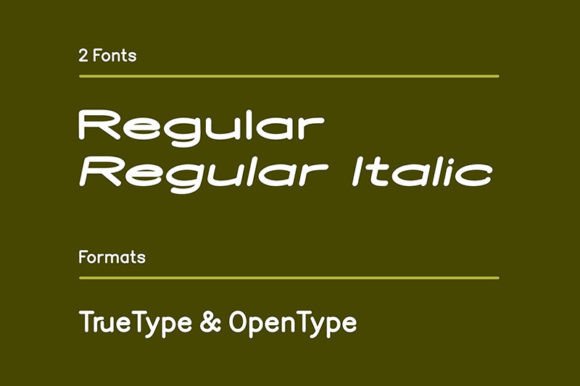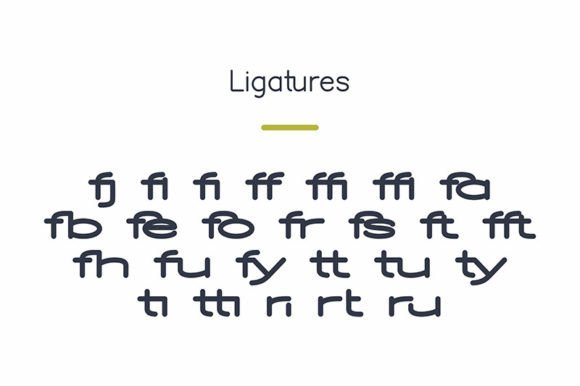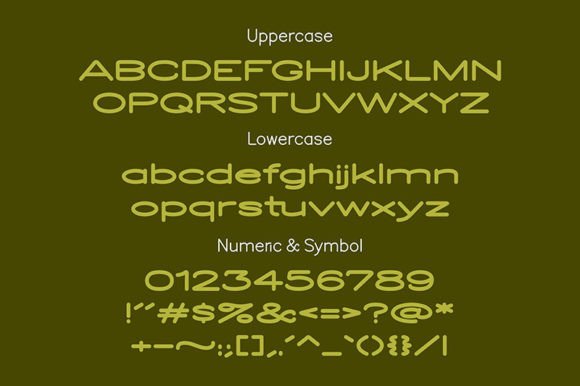
Unleash Your Creativity with the Enuy Extended Font
Have you ever stared at a blank page, unsure of how to bring your creative vision to life? We’ve all been there. But what if you had the perfect tool to give your design a unique twist? Enter the Enuy Extended Font, a modern sans serif typeface that adds a touch of individuality to any project.
Whether you’re working on a digital campaign, a modern logo, or a bold advertising campaign, the Enuy Extended Font is the perfect companion. Its unique personality and style bring a fresh perspective to contemporary design projects, making it a valuable asset for designers looking to stand out from the crowd.
Enuy Extended Font Key Features
- Font Family: Enuy Extended is a modern sans-serif font family that includes 8 weights and 4 styles.
- Character Set: Supports a wide range of languages, including Latin, Cyrillic, Greek, and many others, making it a great choice for global branding and design projects.
- Unique Characteristics: Enuy Extended features a unique blend of modern and traditional design elements, with clean lines, geometric shapes, and subtle nuances that set it apart from other sans-serif fonts.
Enuy Extended Font Review
As a designer, I’ve had the chance to work with various fonts, and the Enuy Extended Font is one of the latest additions to my collection. Here’s my honest review.
- The Enuy Extended Font is highly legible, making it perfect for body text and long-form content.
- Its unique character set includes a wide range of glyphs, including symbols and icons, which can be a great asset for designers.
- The font is highly customizable, allowing users to adjust the weight, spacing, and other settings to suit their needs.
- The font may not be ideal for headlines or titles, as it can appear somewhat generic and lacking in personality.
- The extensive character set can be overwhelming, making it difficult to navigate and find the desired glyph.
- The font may not be suitable for very small text sizes, as the characters can become distorted and lose clarity.
Overall, the Enuy Extended Font is a solid choice for designers who need a reliable, versatile font for body text and content. While it may not excel in certain areas, its strengths make it a valuable addition to any design collection.
Enuy Extended Font is ideal for:
1. Luxury branding and marketing materials.
2. High-end fashion and beauty designs.
3. Sophisticated business presentations and reports.
4. Elegant invitations and stationery.
Alternatives to Enuy Extended Font for Designers